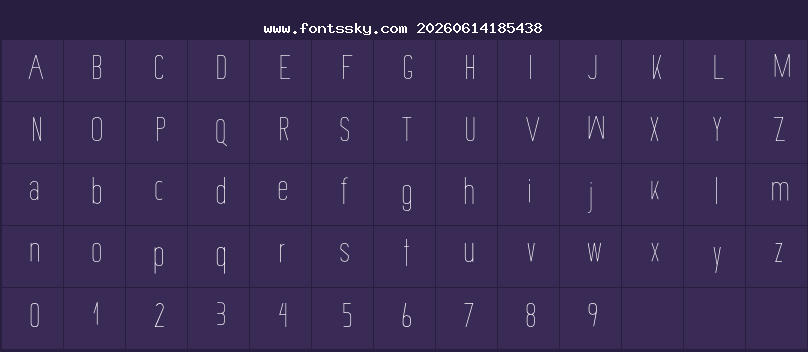
Allegro Preview
• Font Name: Allegro
• Full Font Name: Allegro
• PostScript Name: Allegro
About Allegro.otf
Allegro.otf is a modern, elegant sans-serif font designed for ultimate readability and visual harmony. Perfect for branding, headlines, web design, and print materials.